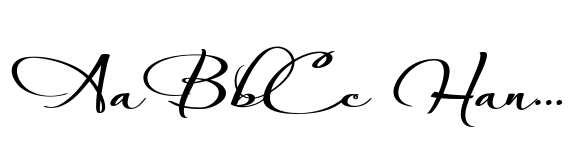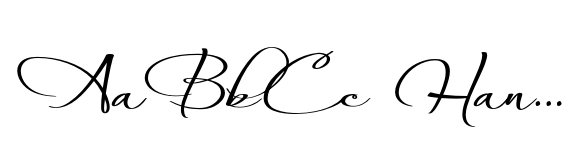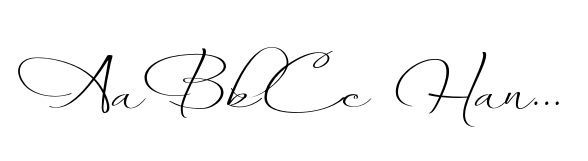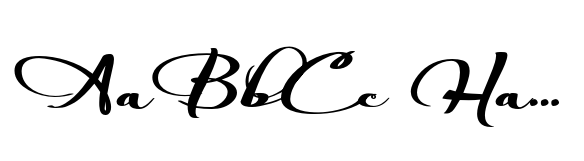
Always
by Scholtz Fonts
The Always Font Family was designed by Anton Scholtz and published by Scholtz Fonts. Always contains 6 styles and family package options. More about this family
Always is an elegant script font in six styles. Always makes full use of extravagant ascenders and descenders, giving the font a generous, opulent appearance. To use the font to its best advantage, we suggest that the user allows a generous line spacing. (For example: use multiple line spacing of no less than 1.3 when using the MS Word application). Always comes in six styles, condensed light, light, condensed regular, black and fat, giving the user enough variety for all possible uses. Use a combination of styles for product branding, book covers, greeting cards, wedding media, women’s advertising media. The Always combination will enable you to use different styles of the same font for headings, sub-headings and body text. Always makes use of OpenType features and includes a number of automatic and discretionary ligatures, giving the font a varied, handwritten effect. Always contains over 283 characters - (upper and lower case characters, punctuation, numerals, symbols and accented characters are present) as well as characters for ligatures and alternate characters. It has all the accented characters used in the major European languages.
Scholtz Fonts, started by Anton Scholtz in 1997, specializes in "African flavor" fonts. The foundry is based in Durban, South Africa, where the Zulu culture of the region has greatly influenced Anton's font design. In his profession as a graphic designer, he became aware of how few available fonts were suitable for African inspired design. He began to create his own fonts to enhance the work produced by his design company, and this branch of his design work has grown steadily in recent years.